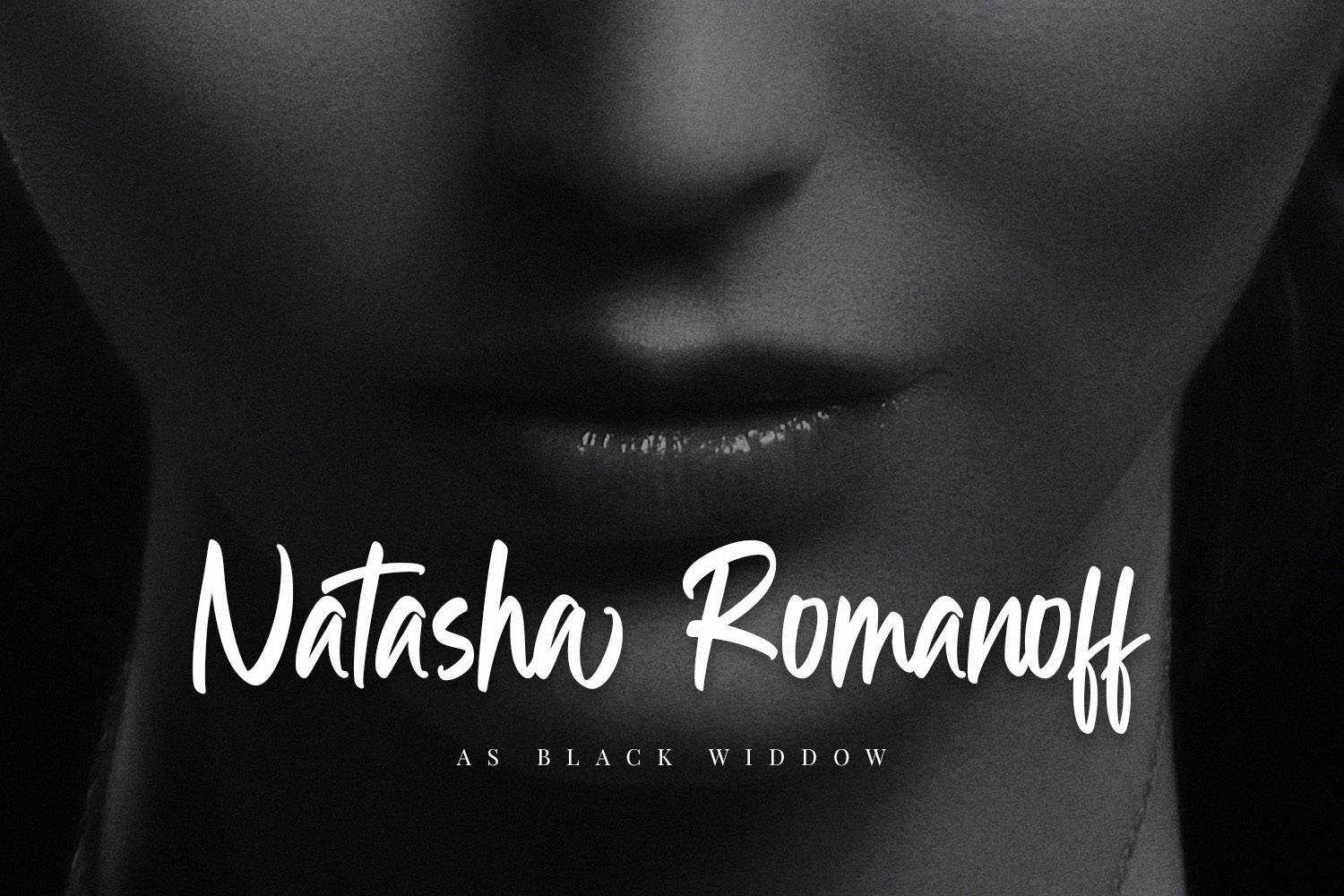
Wonderland is a playful and energetic script font with a hand-drawn feel, characterized by its slender, irregular strokes and lively, slightly slanted letterforms. Its casual elegance makes it ideal for creative projects like branding, invitations, and social media, where a personal and approachable touch is desired. This font works well in headlines and short texts, adding charm and warmth without sacrificing readability.
Wonderland Font
About Wonderland Font